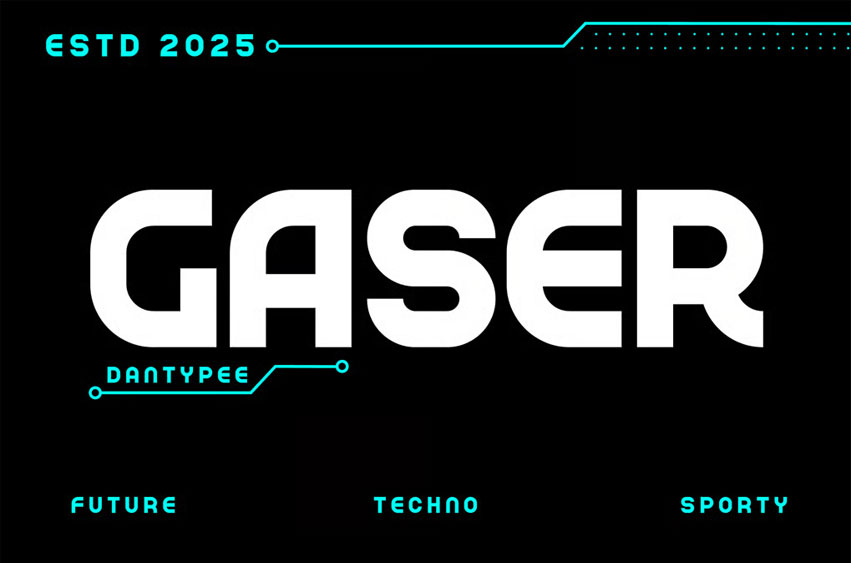
Gaser Font is a bold display typeface with a techno-futuristic style, designed to deliver a strong, modern, and high-tech impression. Its geometric structure and solid letterforms make it perfect for projects that require a powerful, futuristic, and sporty visual identity.
Ideal for logos, esports, posters, headlines, and technology-driven designs, GASER blends precision with bold aesthetics. Its sleek and dynamic shapes give any project a sense of innovation and forward-thinking design, making it a versatile choice for contemporary creative needs.
- All Caps, Numbers & Punctuation
- Alternate Glyph